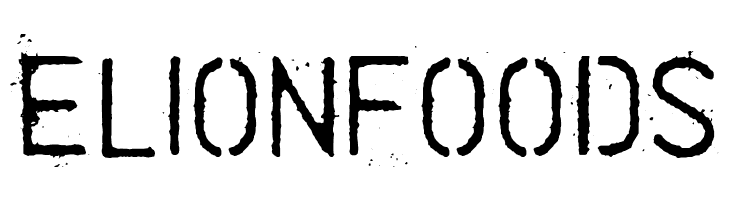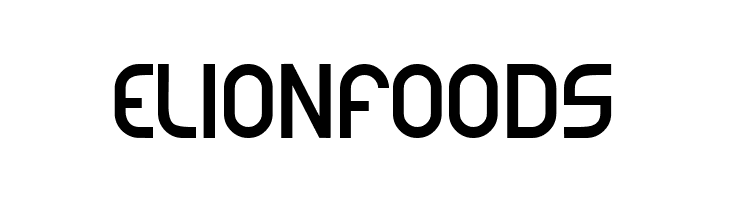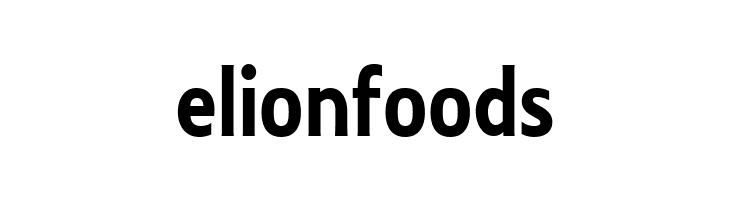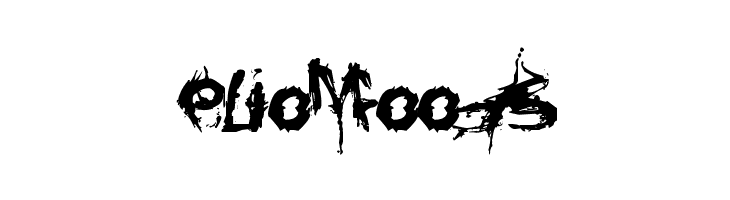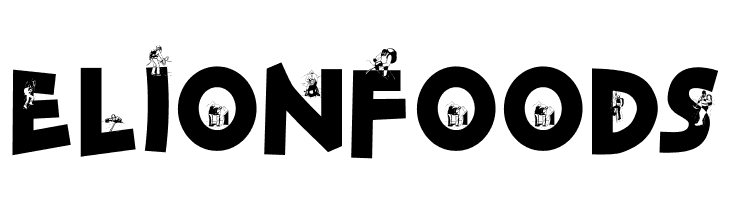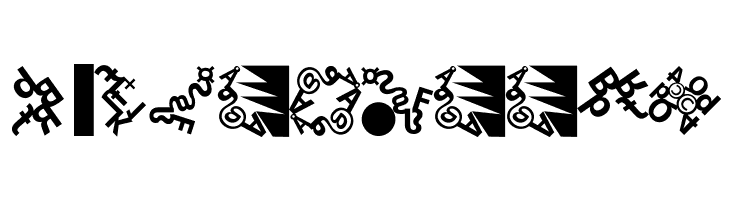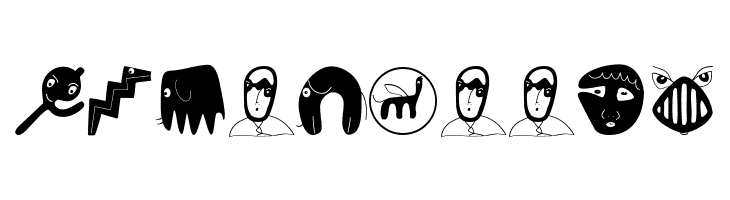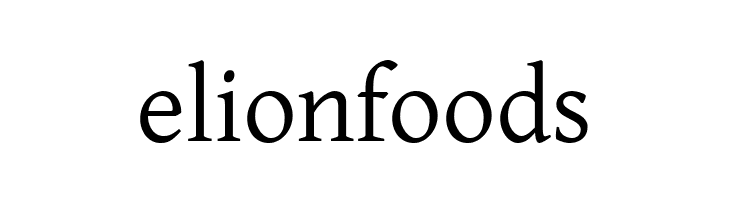
A classic slab serif font with bold serifs and uniform strokes, offering a vintage appeal.
A collection of whimsical silhouettes of mythical creatures.
Ornate fantasy-themed pictorial font with mythical creatures.
A quirky, illustrated display font using prize-themed icons as characters.
Abstract and artistic representations resembling faces within diamond shapes.
A bold, thorny, and aggressive decorative font.
Hand-drawn dingbat font with cartoon facial features and heads.
A bold, flowing script font with a playful, handwritten style.
A rugged, distressed font with a hand-drawn, textured appearance.
A whimsical and elegant script font with flowing, cursive letterforms.
A dynamic and elegant script font with flowing, cursive letterforms.
A playful, bold font with a hand-drawn, energetic style.
A dynamic and elegant script font with flowing, cursive letterforms.
Not a valid font; contains musical and abstract symbols.
Font consists of guitar chord diagram glyphs.
A set of musical and chord notation symbols for music instruction.
A bold, textured font with a rugged, distressed appearance.
A sleek, geometric font with thin lines and a modern, minimalist style.
A sleek, modern font with geometric elements and a futuristic feel.
A sleek, modern italic font with geometric precision and futuristic style.
A sleek, modern italic font with a futuristic and minimalist design.
A bold, expressive handwritten font with dynamic, flowing letterforms.